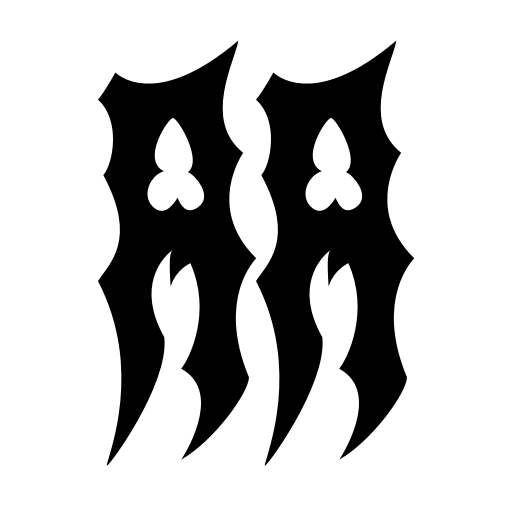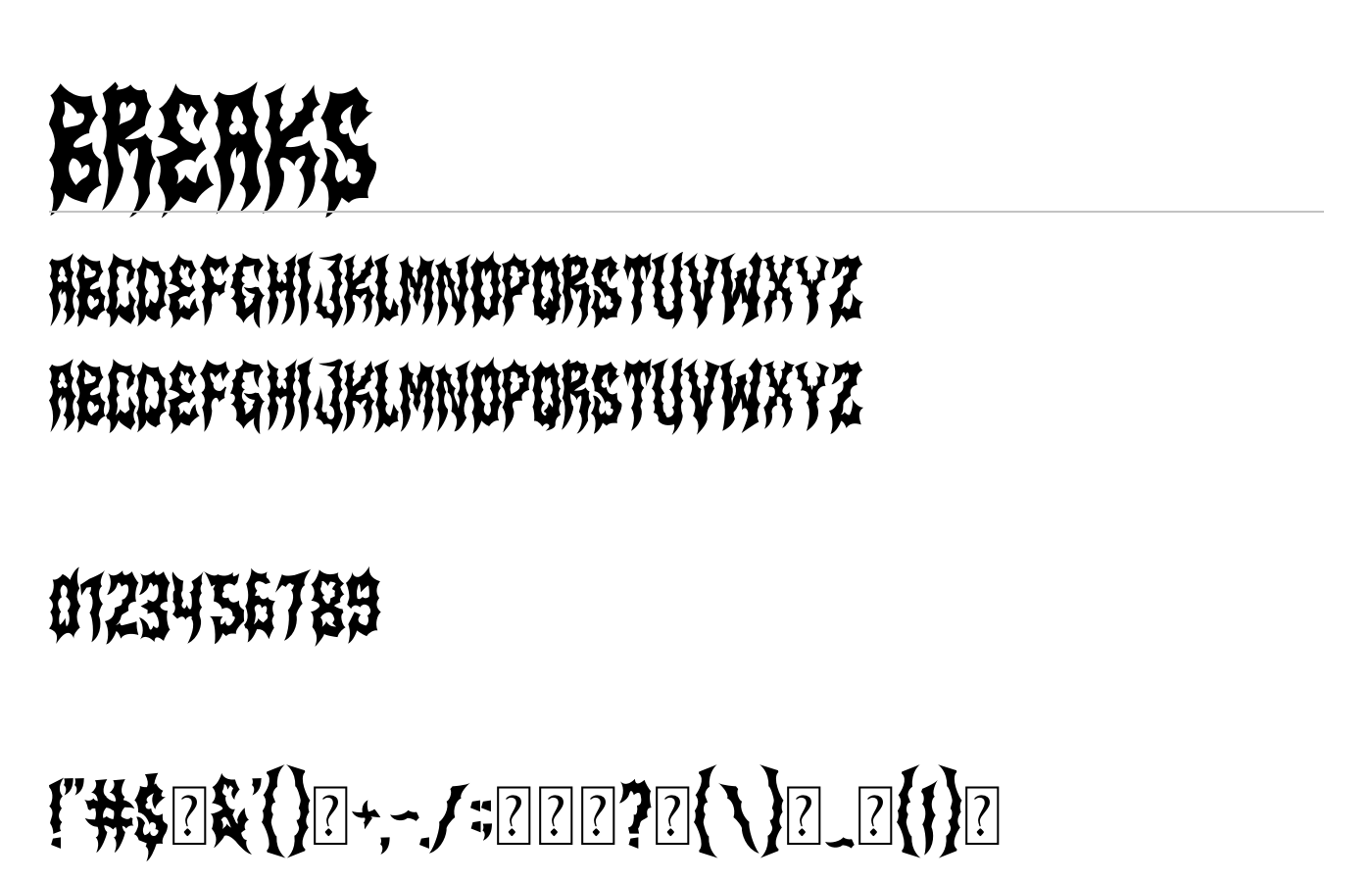
BREAKS is a bold, condensed display font featuring jagged, irregular edges that give it an intense, edgy appearance. Its all-caps design with high x-height and sharp contrast creates a striking, almost aggressive personality perfect for eye-catching headlines, logos, and branding in music, streetwear, and alternative culture. This font is best used where a dramatic, rebellious vibe is desired, making it less suited for body text but ideal for impactful, artistic statements.
BREAKS Font